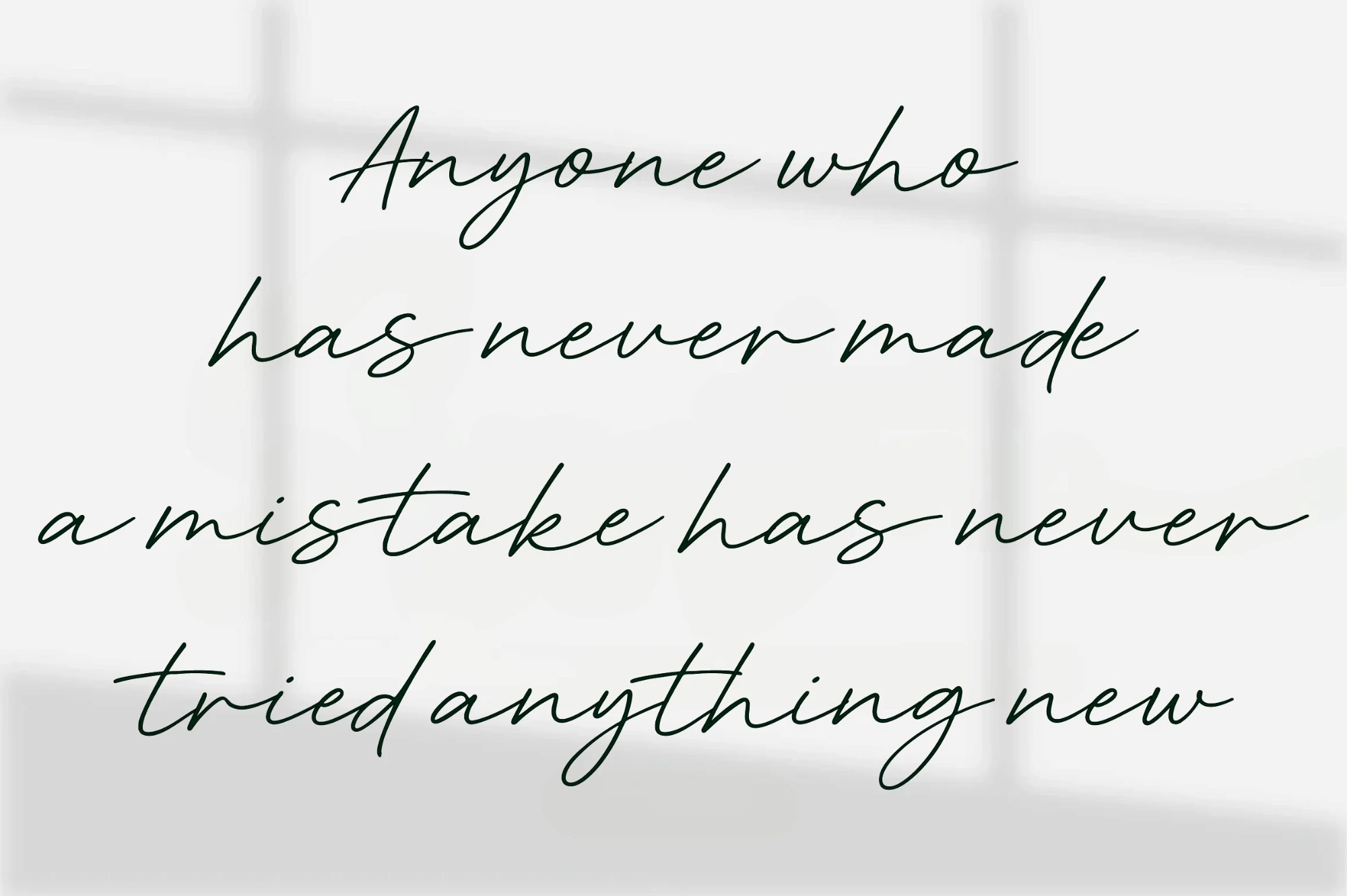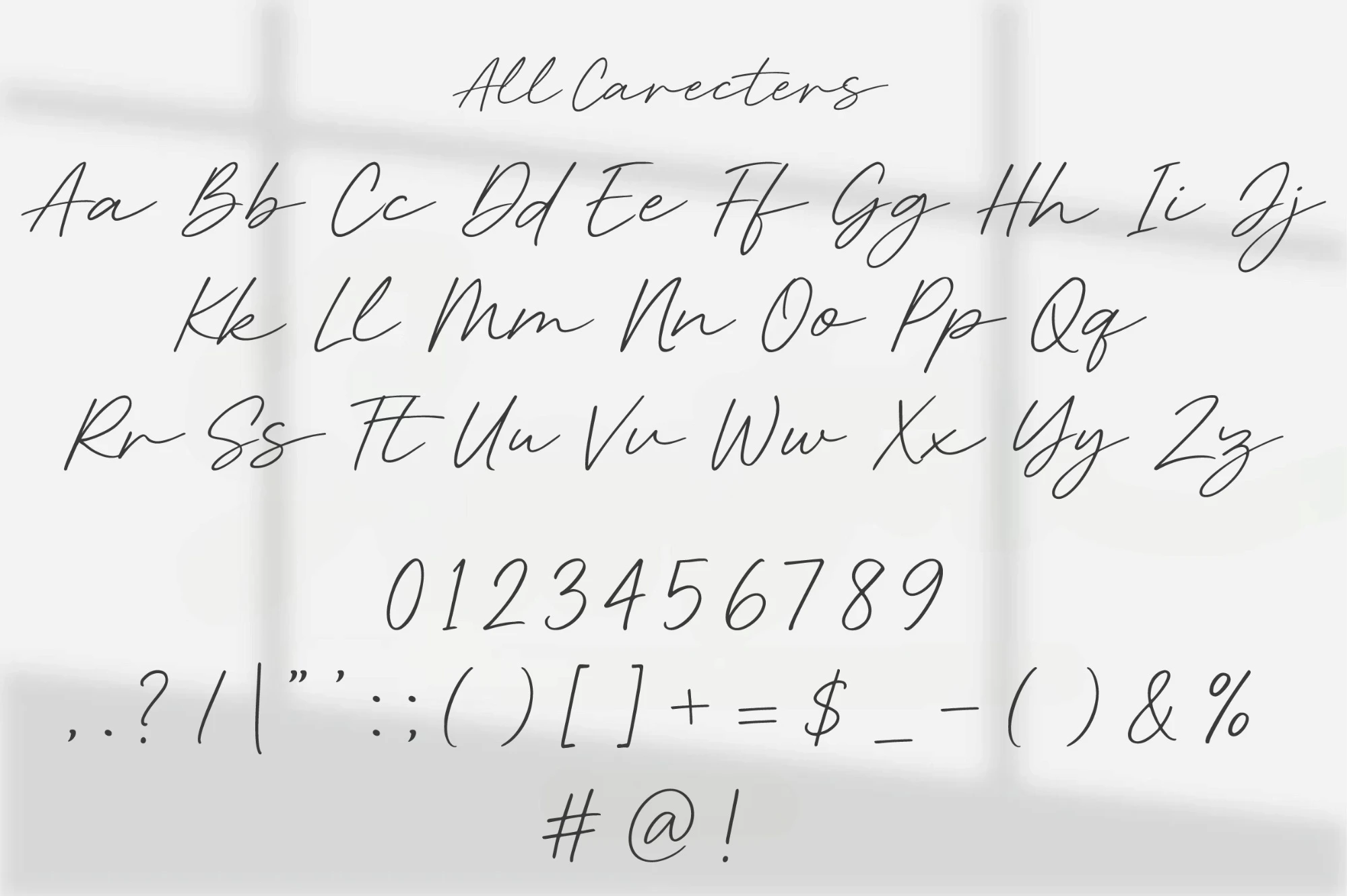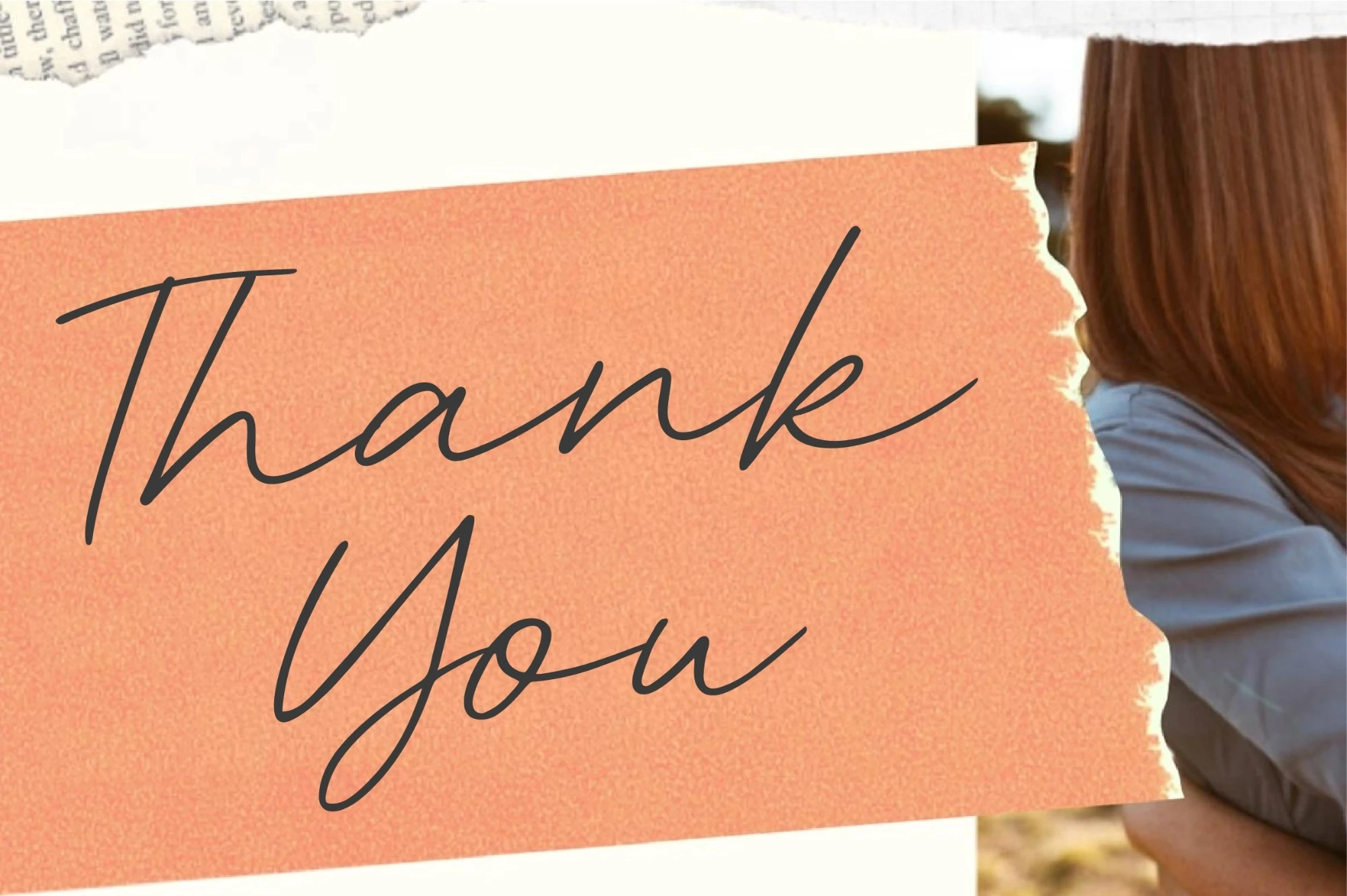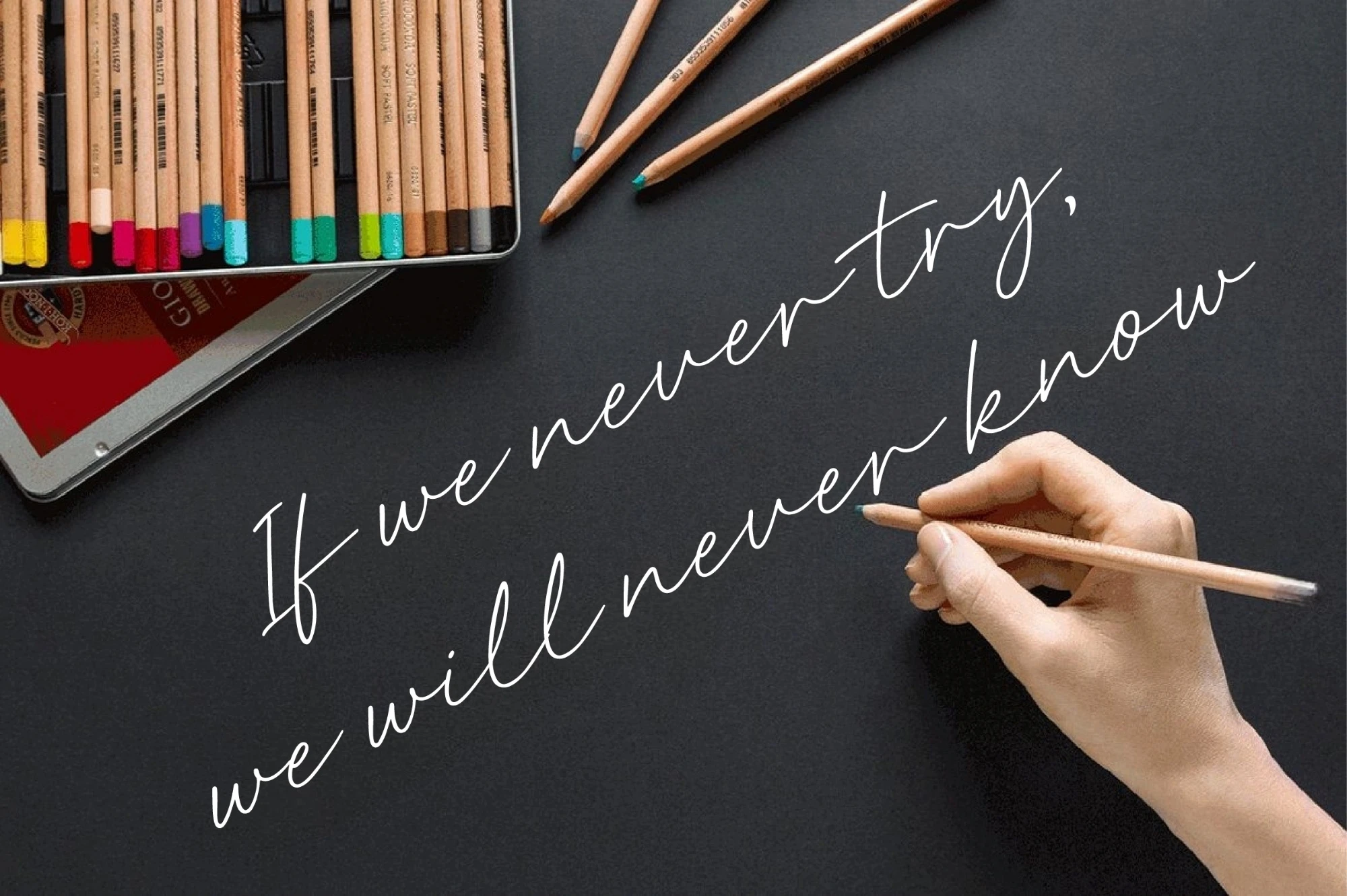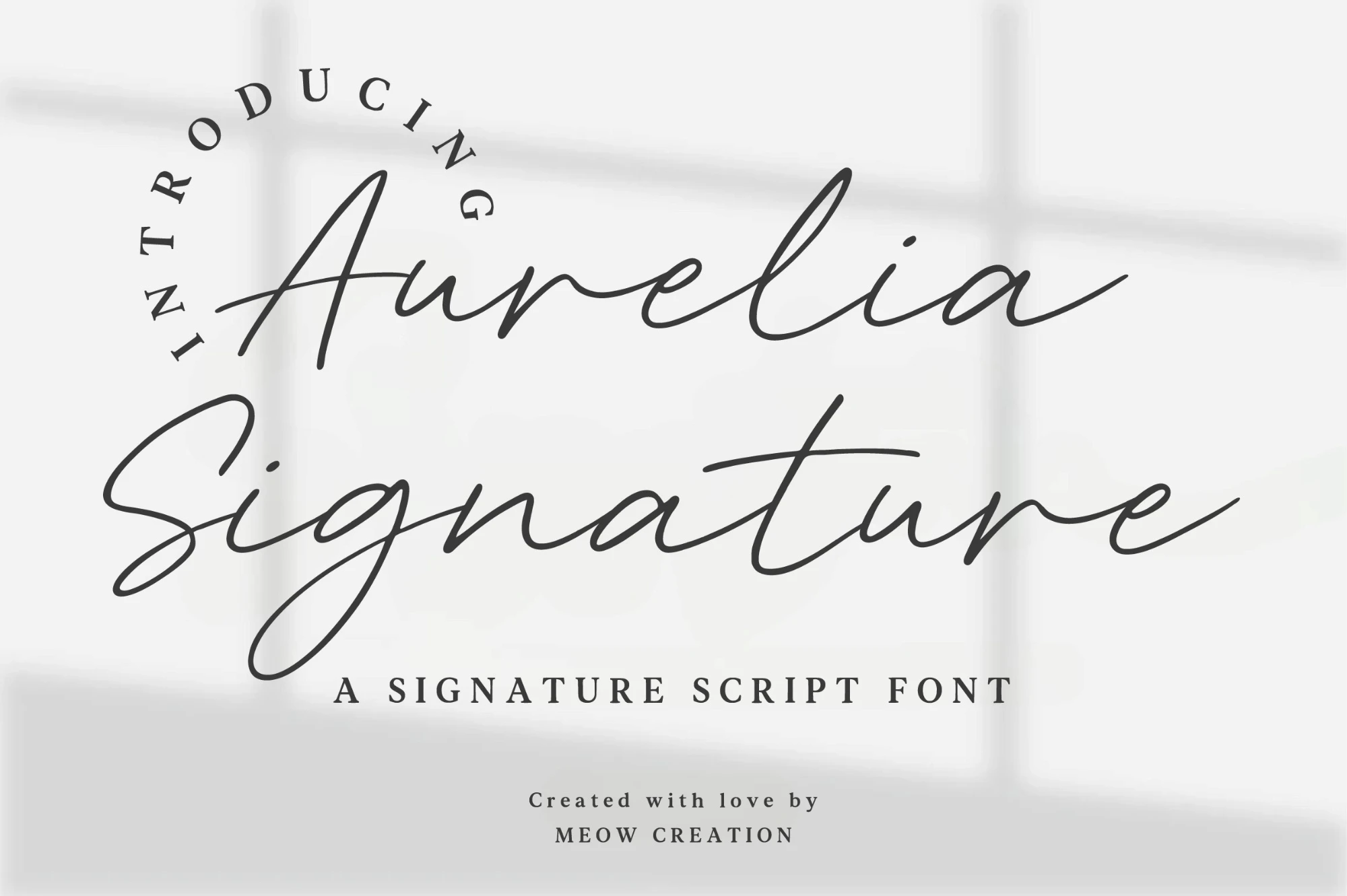
Elevate your brand with Aurelia Signature, a graceful and modern script font designed to give your work the authentic, personal touch of a genuine handwritten signature.
This exquisite Aurelia Signature font features thin, clean lines, subtle irregularities, and a beautiful connection between characters, perfectly mimicking quick, natural penmanship. It strikes a sophisticated balance between effortless style and refined elegance, ensuring a high-end, personalized aesthetic. The inclusion of decorative swashes and alternates further enhances its versatility, allowing designers to create truly customized and distinctive typographic layouts that feel both intimate and luxurious.
The Aurelia Signature typeface is indispensable for any project requiring a bespoke, exclusive feel. It is the ideal choice for creating stunning logos and monograms, designing chic wedding stationery, adding professional watermarks to photography, or branding high-end products like cosmetics, jewelry, and fashion items.
Let the fluid, confident strokes of the Aurelia Signature font deliver your message with unmistakable class and a polished, personal touch.
This exquisite Aurelia Signature font features thin, clean lines, subtle irregularities, and a beautiful connection between characters, perfectly mimicking quick, natural penmanship. It strikes a sophisticated balance between effortless style and refined elegance, ensuring a high-end, personalized aesthetic. The inclusion of decorative swashes and alternates further enhances its versatility, allowing designers to create truly customized and distinctive typographic layouts that feel both intimate and luxurious.
The Aurelia Signature typeface is indispensable for any project requiring a bespoke, exclusive feel. It is the ideal choice for creating stunning logos and monograms, designing chic wedding stationery, adding professional watermarks to photography, or branding high-end products like cosmetics, jewelry, and fashion items.
Let the fluid, confident strokes of the Aurelia Signature font deliver your message with unmistakable class and a polished, personal touch.